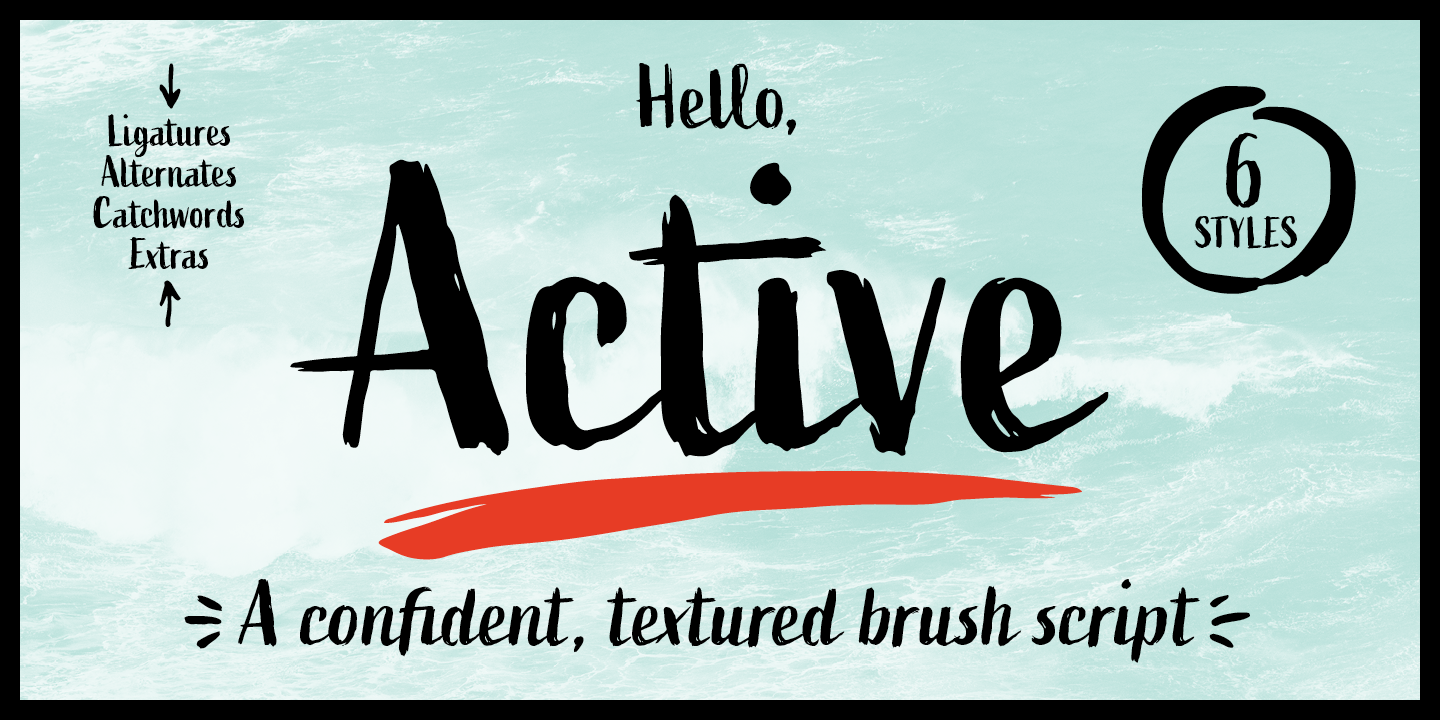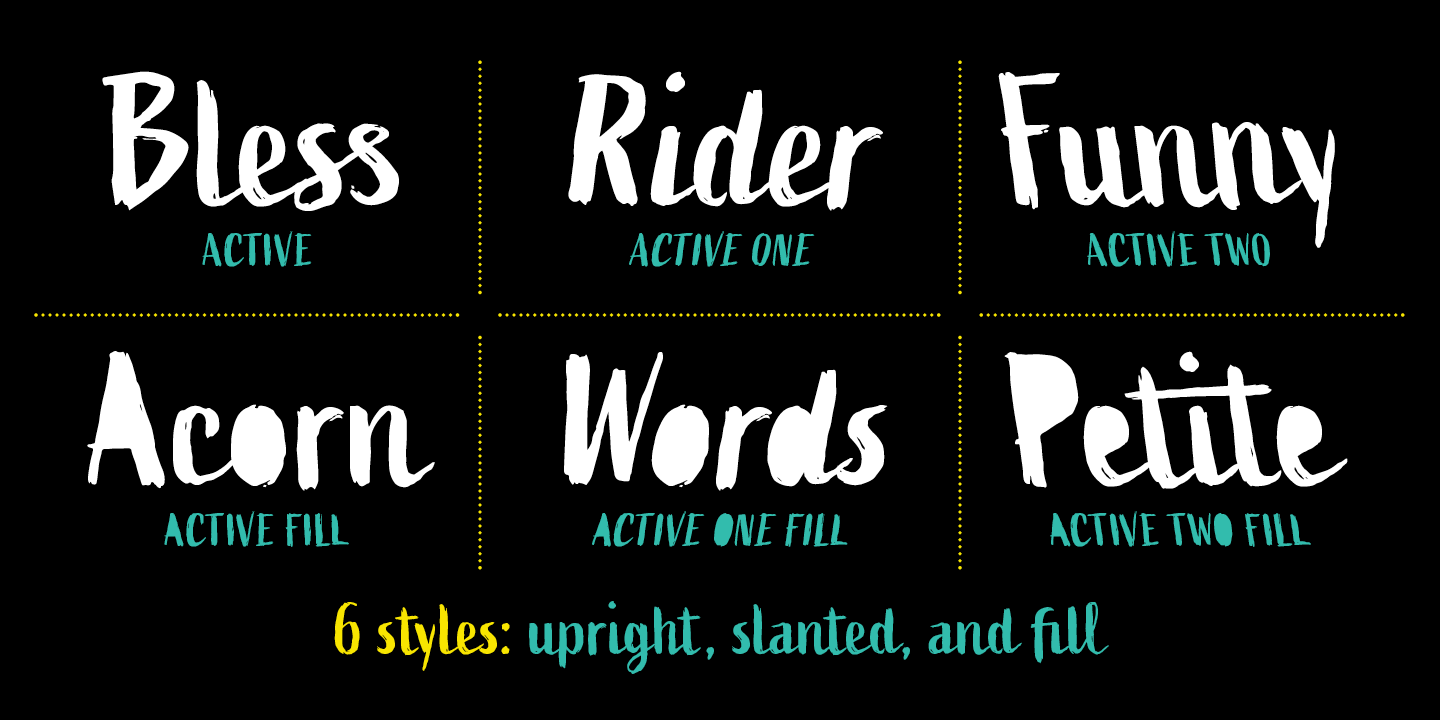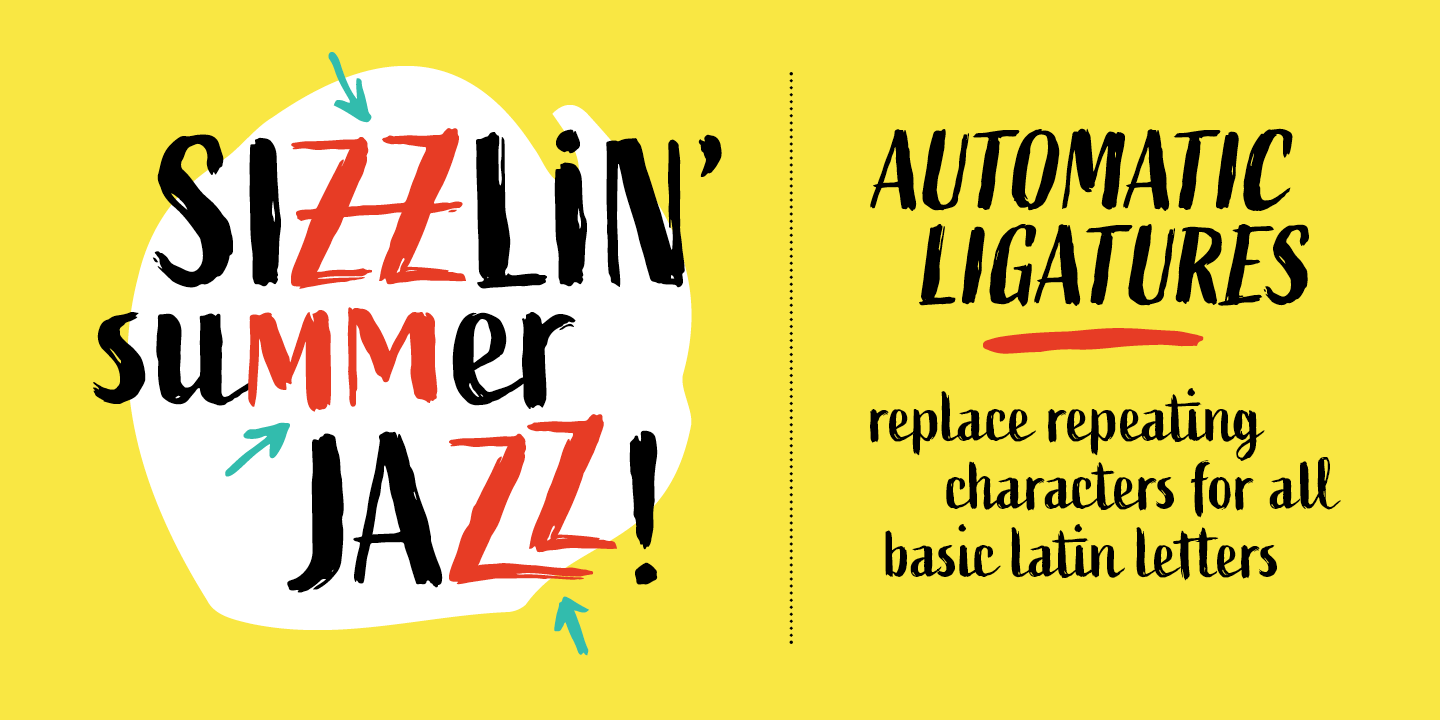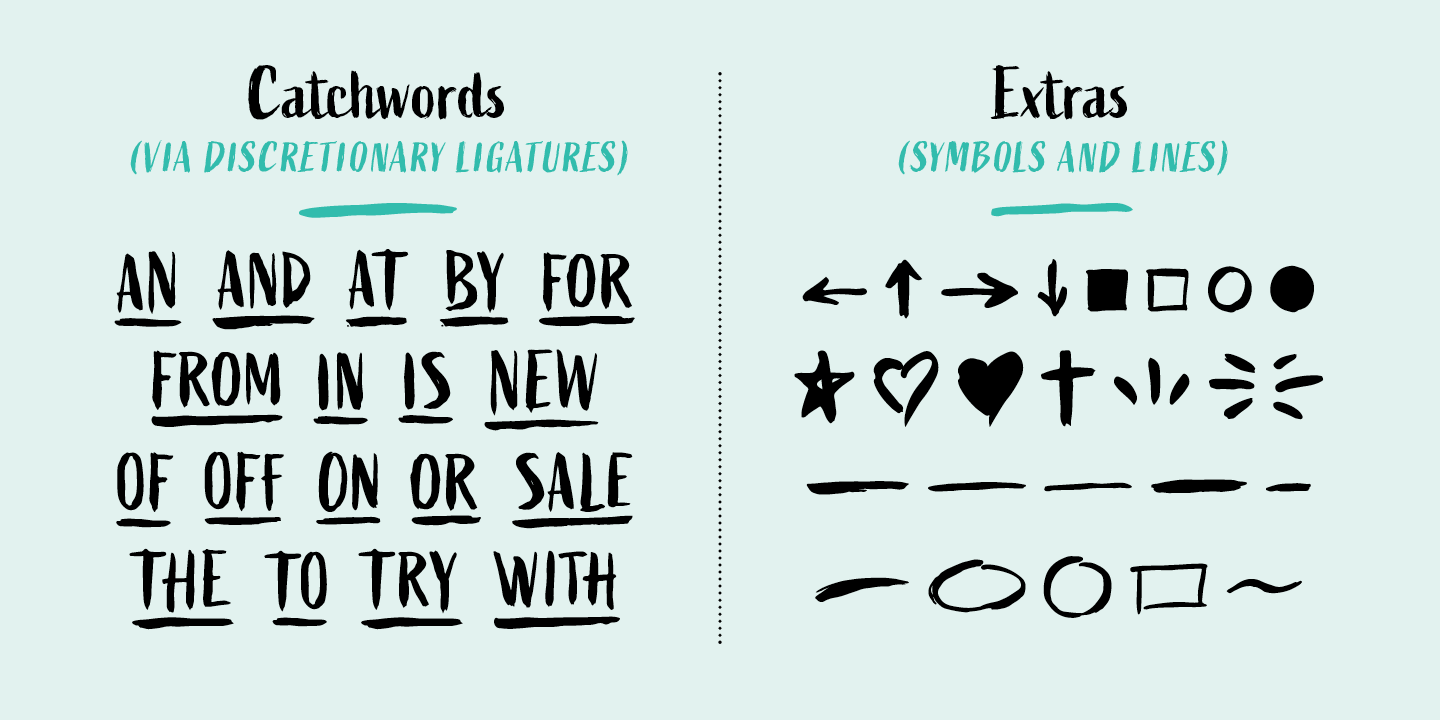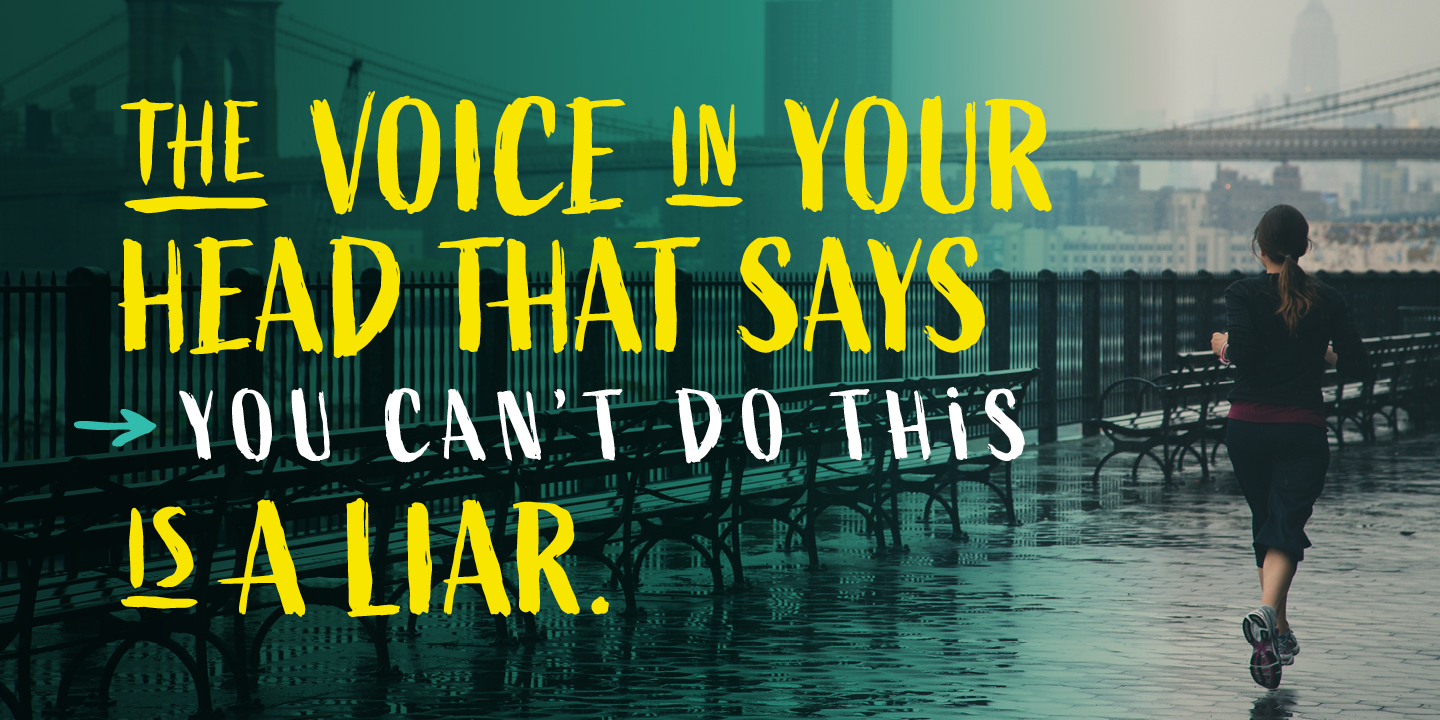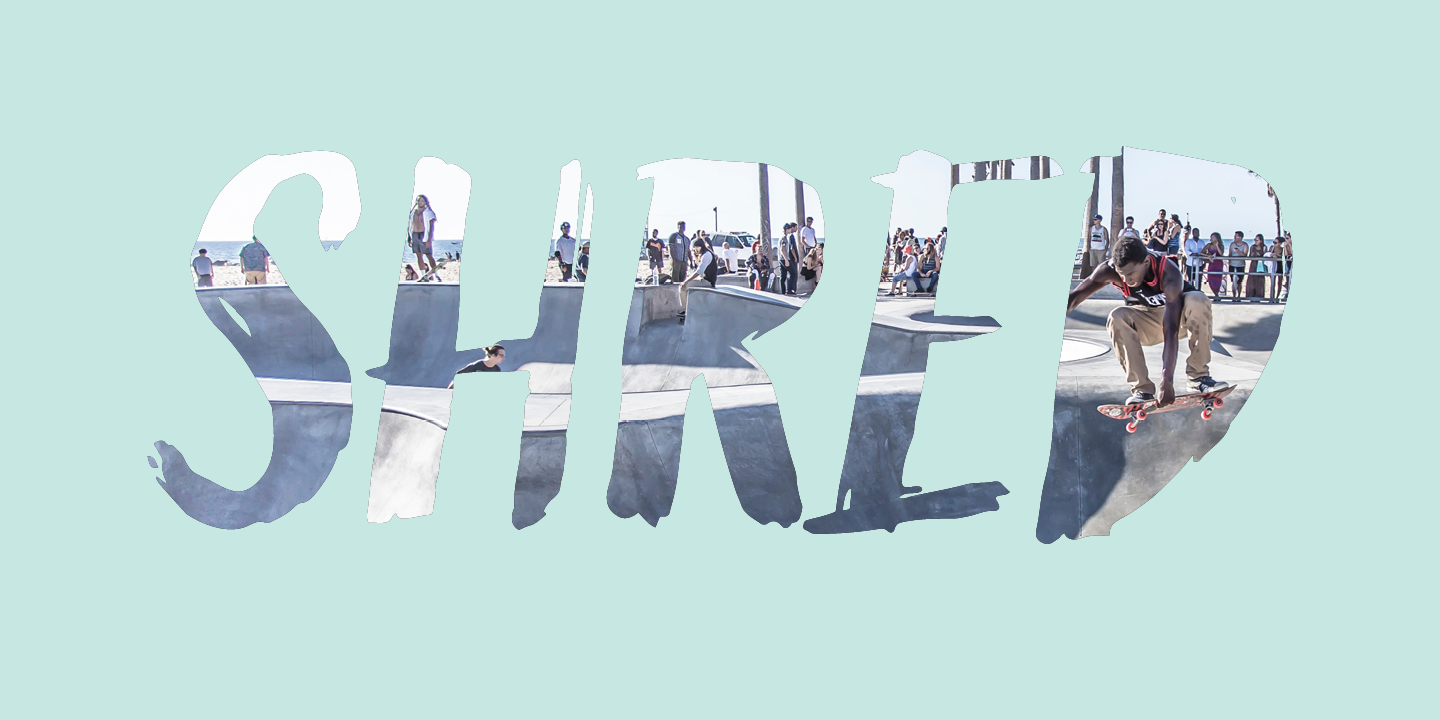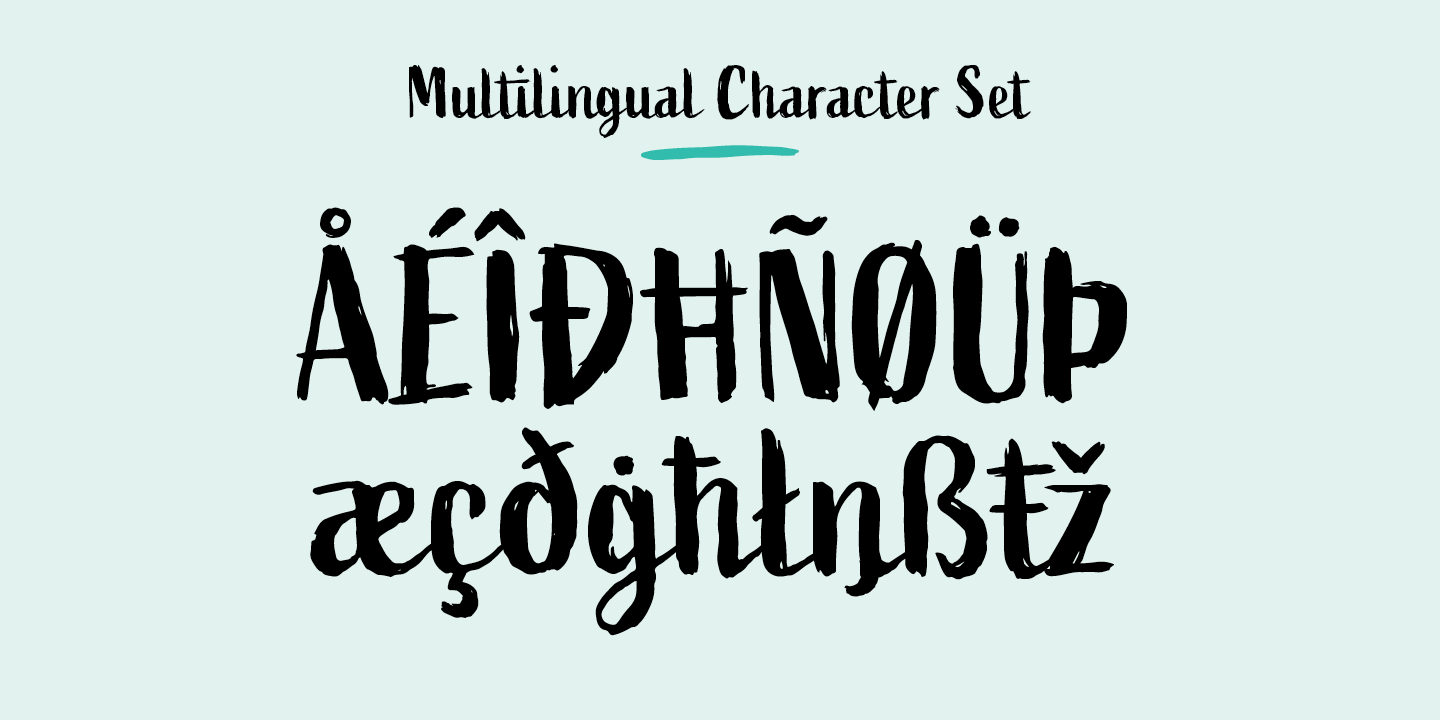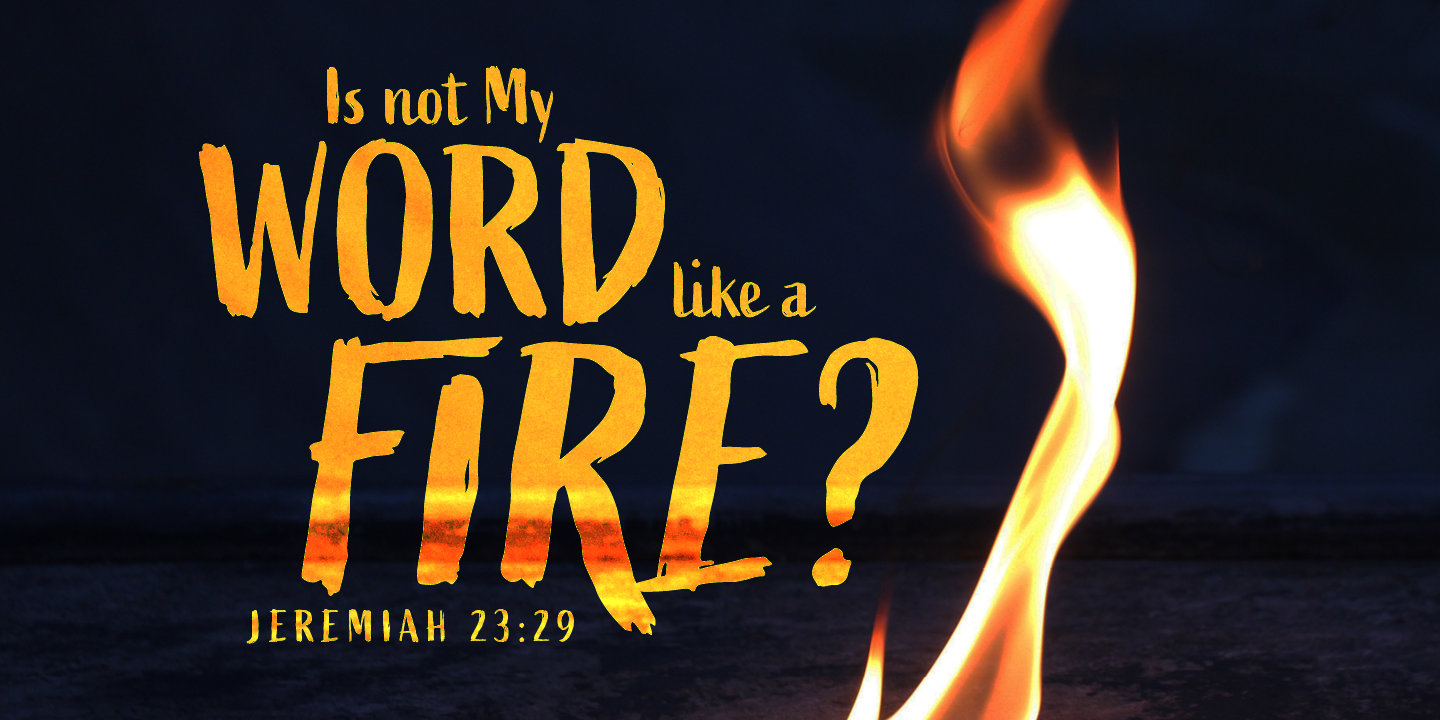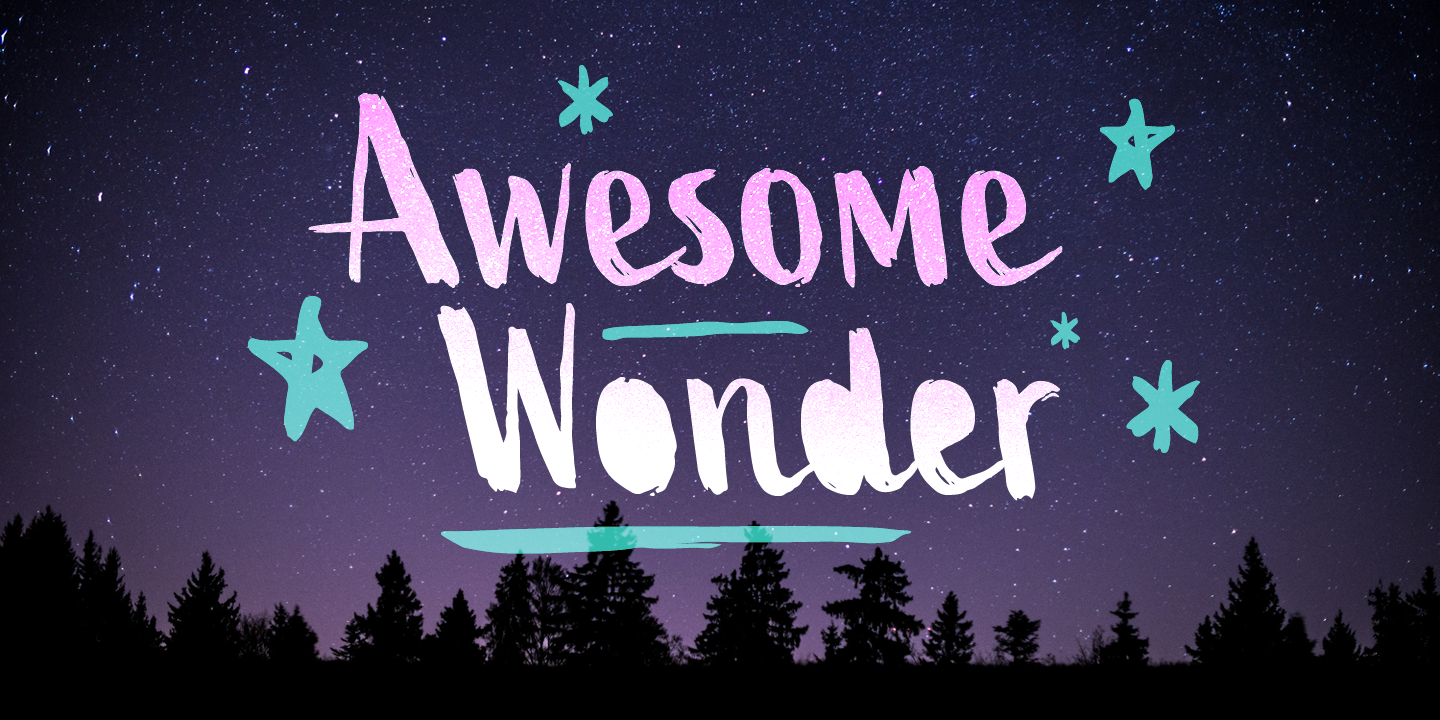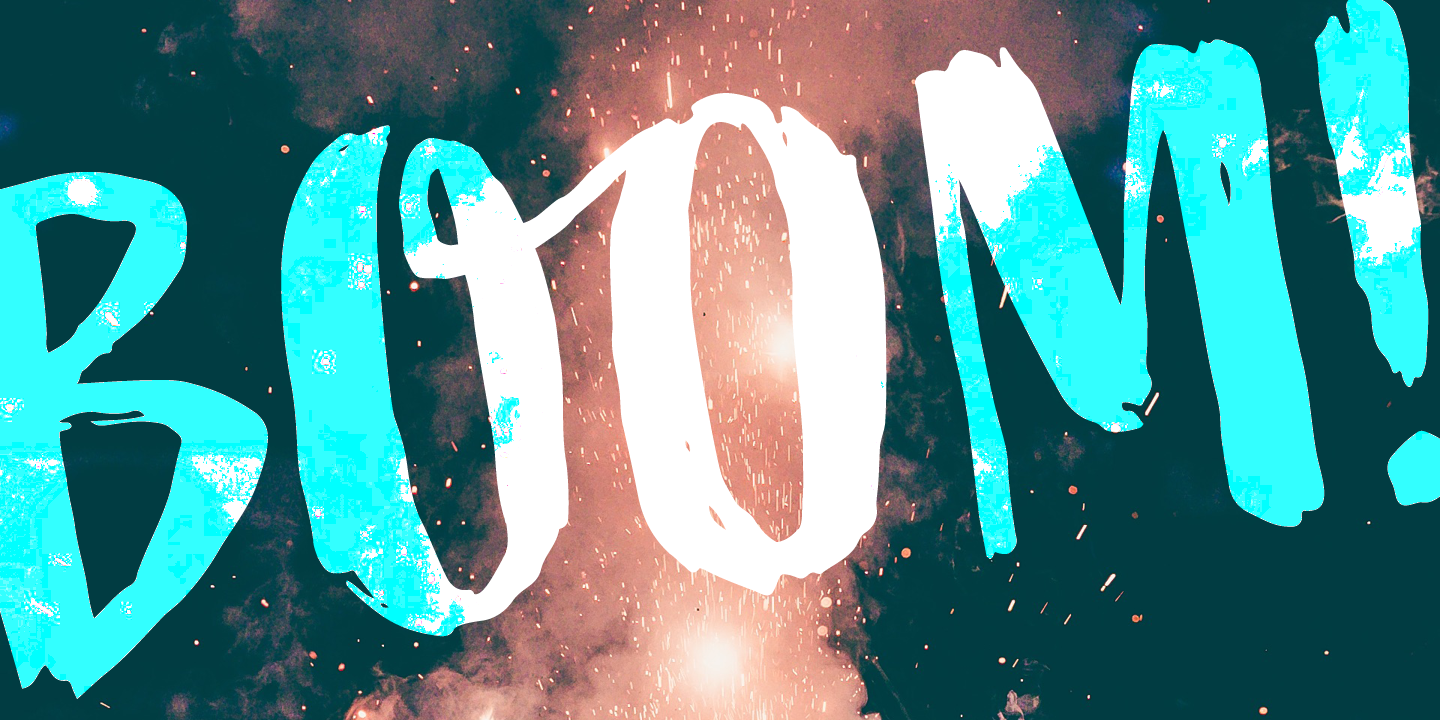
Active is an upright brush script with slanted and fill styles. Hand-drawn with brush and ink, it is confident while expressive, and has a textured appearance. Automatic ligatures replace repeating characters for all basic latin letters for a more genuine look. Stylistic alternates for certain uppercase characters will help add visual interest to your typography.
Also included in the 400+ glyph count are catchwords (just turn on discretionary ligatures, or access via the glyphs panel in OpenType savvy programs) and ornamental extras, like symbols and lines.